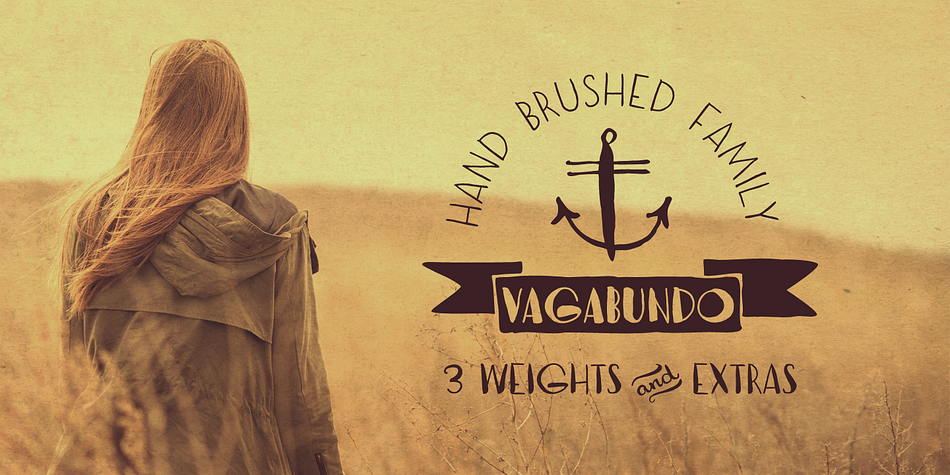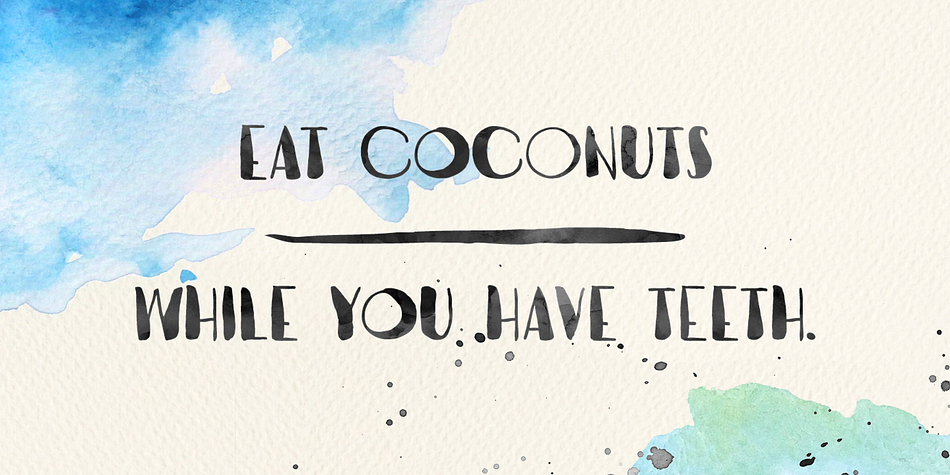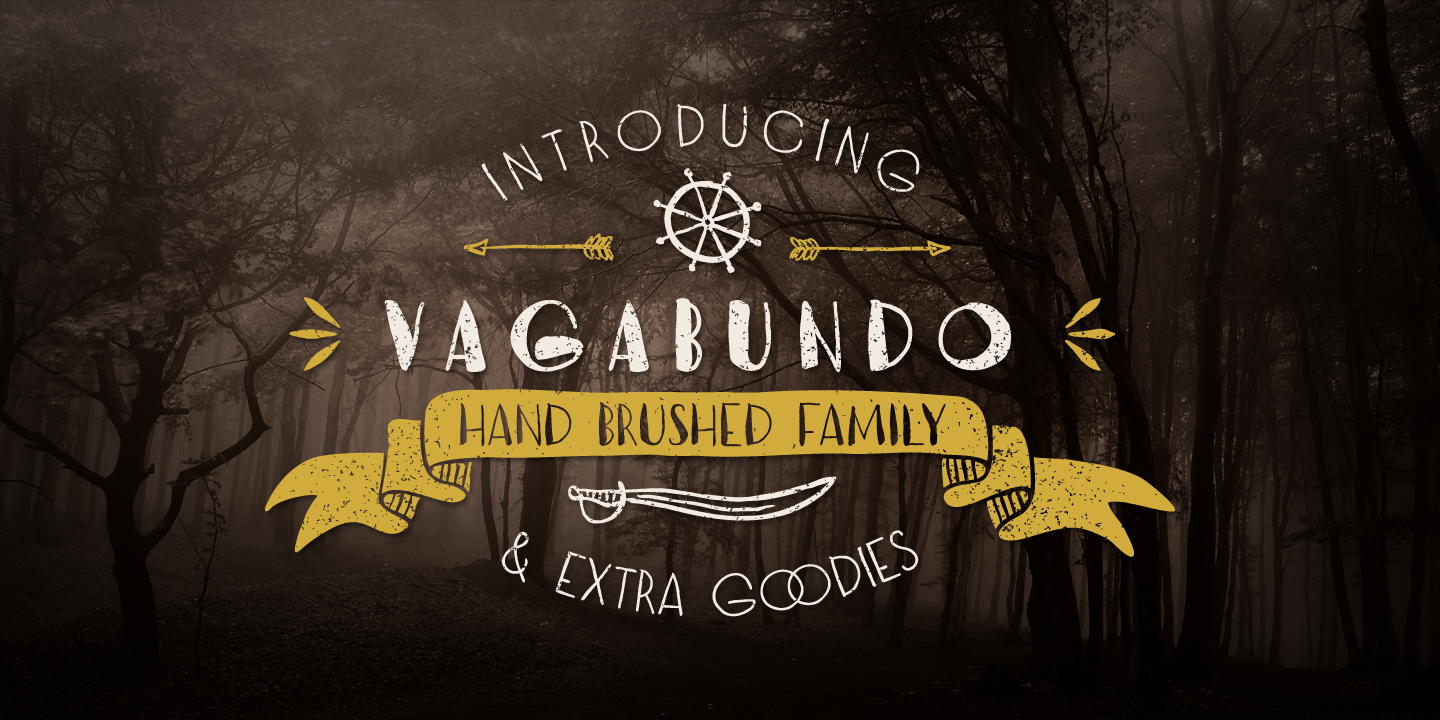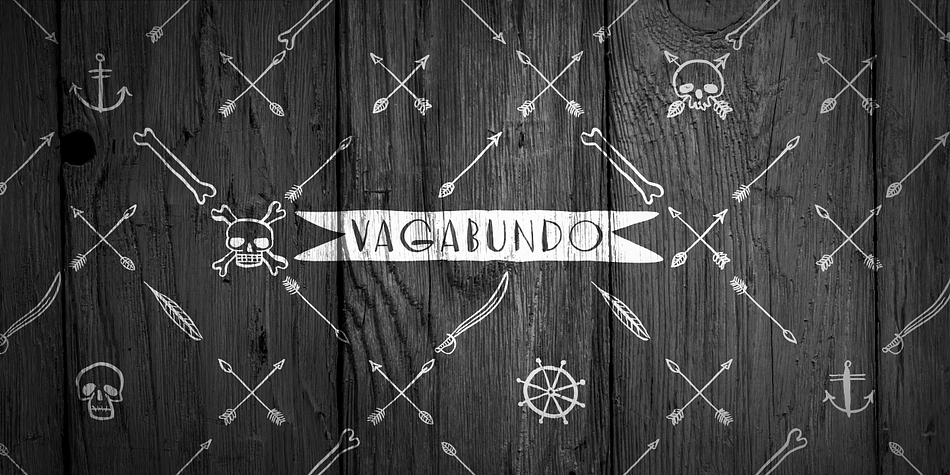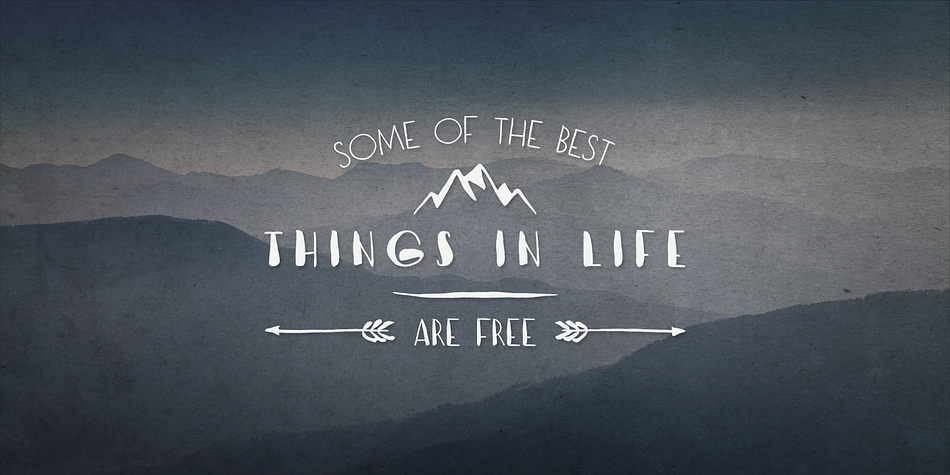
Vagabundo is a dingbat, hand display and brush display font family. This typeface has seven styles and was published by Juraj Chrastina.
Vagabundo is a hand brushed family with three styles and some extra goodies.
You can combine different weights with icons, ornaments and banners to get a nice original design.